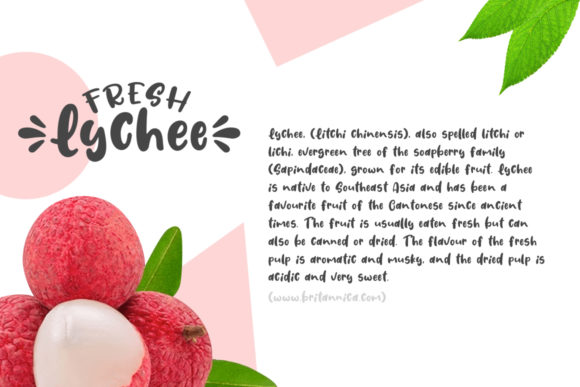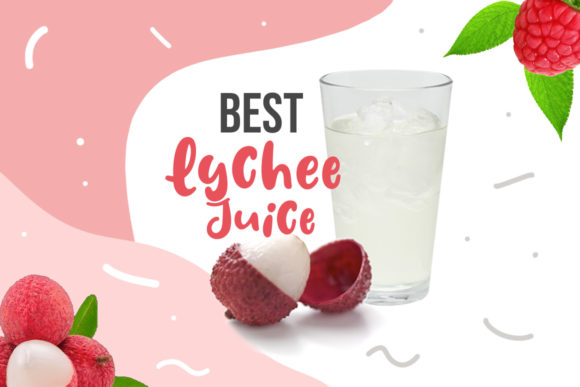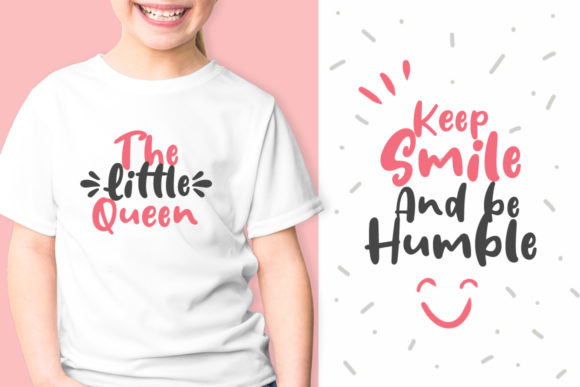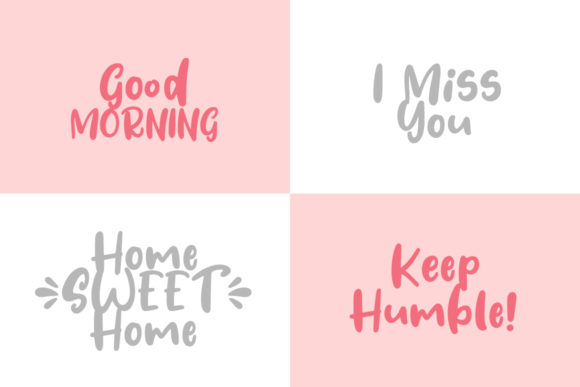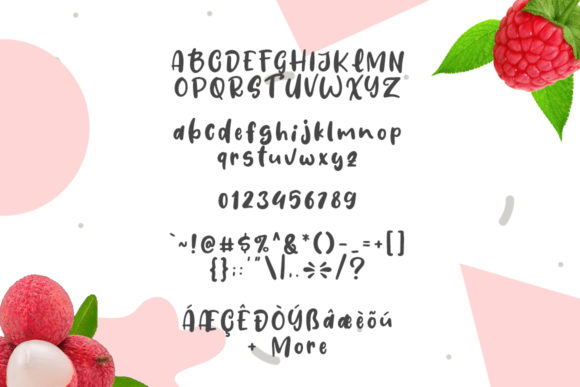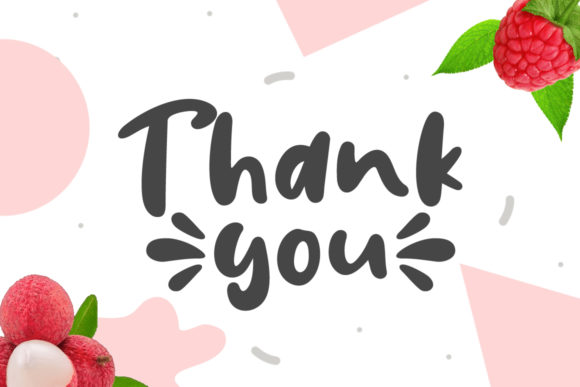
The Perfect Addition to Your Next Project: Fresh Lychee Font
Have you ever been brainstorming ideas for a new design project, only to find yourself stuck in a sea of bland typography? We’ve all been there – but what if we told you there’s a solution to bring your creative visions to life? Enter Fresh Lychee Font, a fun and relaxed display font designed to add a touch of personality to your work.
Whether you’re a seasoned designer or just starting out, Fresh Lychee Font is the perfect addition to your toolkit. With its playful and approachable vibe, it’s perfectly suited for a wide range of projects, from social media graphics to packaging designs. And the best part? It’s incredibly easy to use – just add it to your creative ideas and watch how it makes them stand out!
- Unique Characteristics: Hand-drawn, cursive script with a natural, flowing feel and a modern aesthetic
Fresh Lychee Font Review
When I first laid eyes on Fresh Lychee Font, I was immediately drawn to its playful and elegant vibe. The font is a perfect blend of modern and traditional design elements, making it suitable for a wide range of projects, from branding and packaging to digital products and editorial content.
- ✨ Unique and stylish design that sets it apart from other fonts in its class.
- ✨ Excellent legibility, making it easy to read in various sizes and contexts.
- ✨ Wide range of language support, making it a great choice for international projects.
- ✨ Comes in multiple weights and styles, providing flexibility and versatility.
- ⚠️ Some users may find the font too ornate or busy, which can detract from its overall impact.
Overall, I’m impressed with Fresh Lychee Font’s unique design and excellent legibility. While it may have some limitations, it’s a great choice for designers looking to add a touch of elegance and sophistication to their projects. With a little creativity and experimentation, Fresh Lychee Font can help take your designs to the next level.
Getting the Most Out of Fresh Lychee Font
For the best results, pair the Fresh Lychee font with a clean and minimalist design aesthetic. Avoid using it in bold or italic styles, as this can detract from the font’s delicate charm. Experiment with different font sizes and color combinations to create a visually appealing design.
The Fresh Lychee font is ideal for use in: digital invitations, social media graphics, branding materials, and packaging design. Its unique and elegant design makes it perfect for creating a sophisticated and eye-catching visual identity.